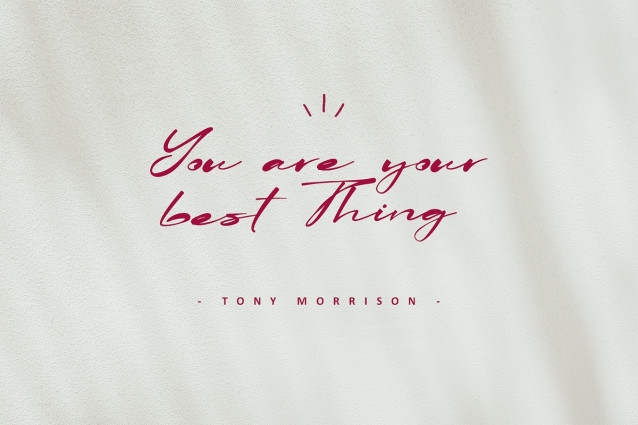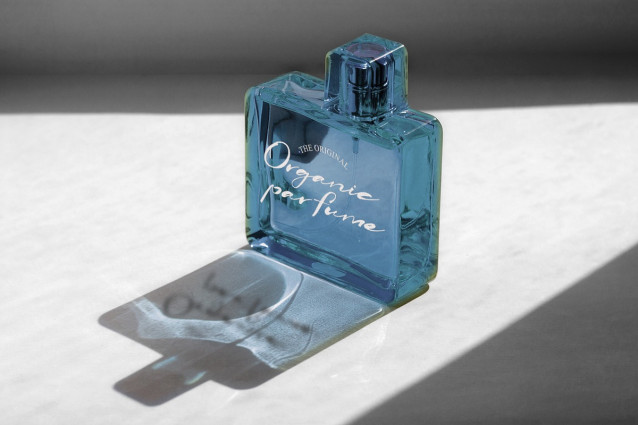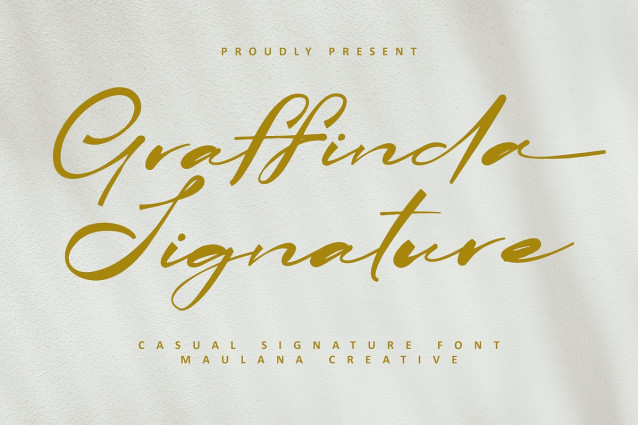
Graffinda Signature Font
Graffinda Signature Font is an exquisite handwritten font, masterfully designed to become a true favorite. It maintains its classy calligraphic influences while feeling contemporary and fresh. Fall in love with it and bring your projects to the highest levels!